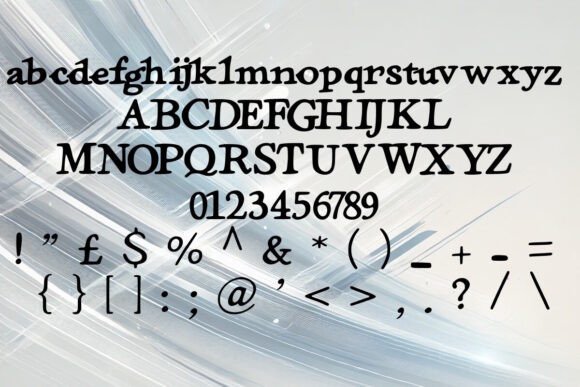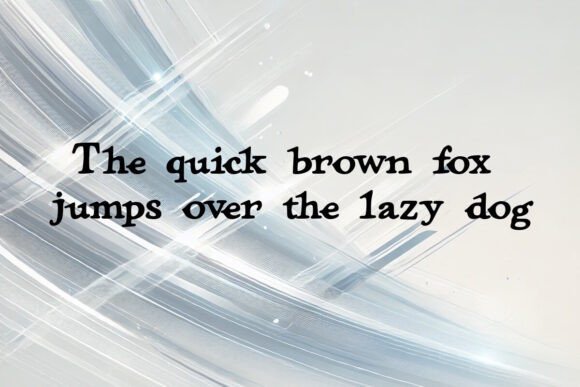
Introduction to Fast Charger Font
Boost your designs with energy and speed using Fast Charger, a bold and quirky handwritten serif font.
With its unique strokes and dynamic โmotion lines,โ this font captures the essence of movement and power Perfect for projects that need to stand out with a modern, energetic twist.
Key Features of Fast Charger Font